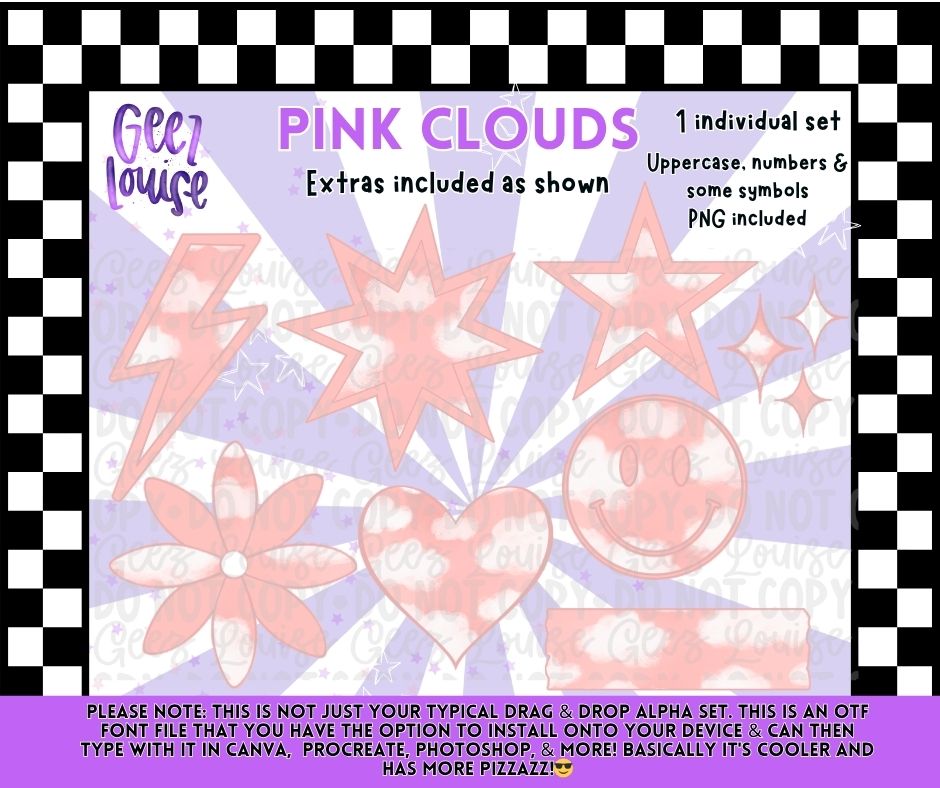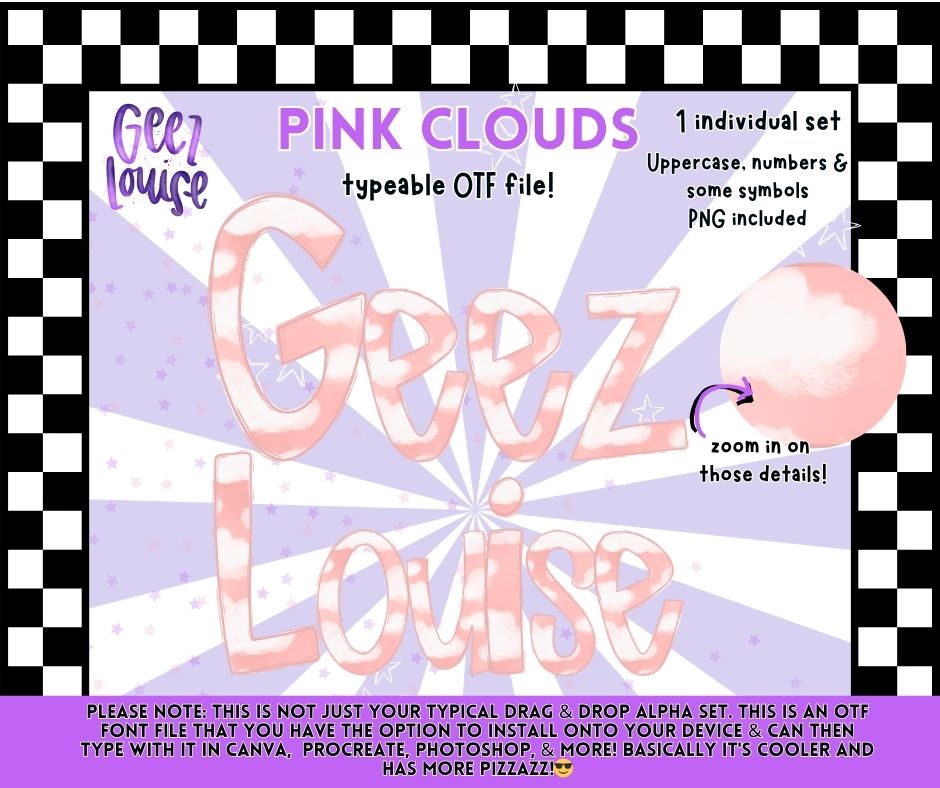
Pink Clouds OTF Font | Typeable Alpha Font & PNG Extras Bundle
Float into soft pastel creativity with the Pink Clouds OTF Font ☁️💗
This dreamy typeable alpha set features fluffy cloud-inspired lettering paired with coordinating extras to help bring your designs to life. Perfect for trendy apparel, girly graphics, sublimation projects, social media content, stickers, and more.
- Uppercase letters
- Numbers
- Select symbols
- Coordinating extras as shown
✨ Extras Included:
- Smiley face
- Stars
- Lightning bolt
- Heart
- Flower
- Sparkles & shapes
🌸 Why You’ll Love It:
Soft, airy, and packed with pastel personality, this font feels like cotton candy skies and late-night doodles in the best way possible ☁️✨